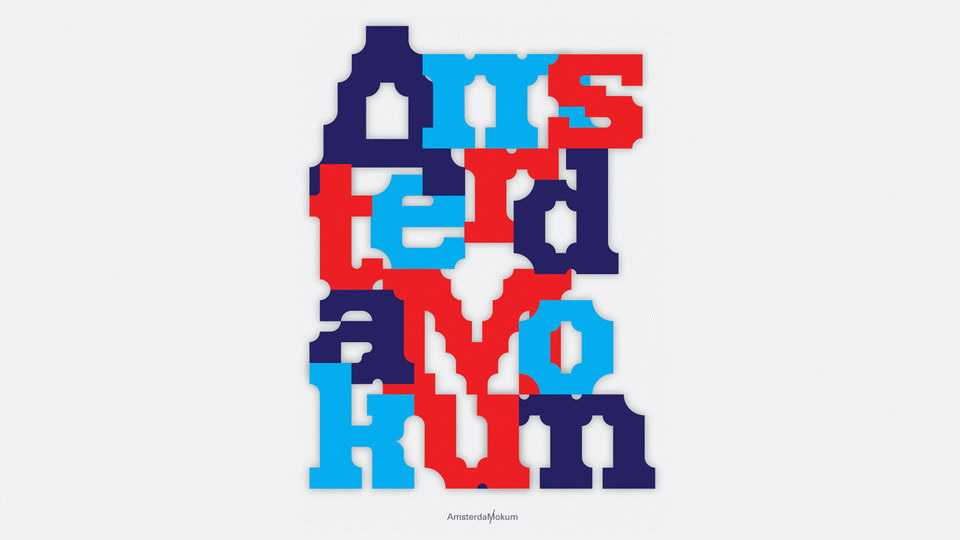
Download Amsterdam font, a decorative typeface inspired by the facades of houses in the city. The letters remind the cycle tours through Amsterdam on a sunny weekend afternoon.
Designer: Jarrik Muller